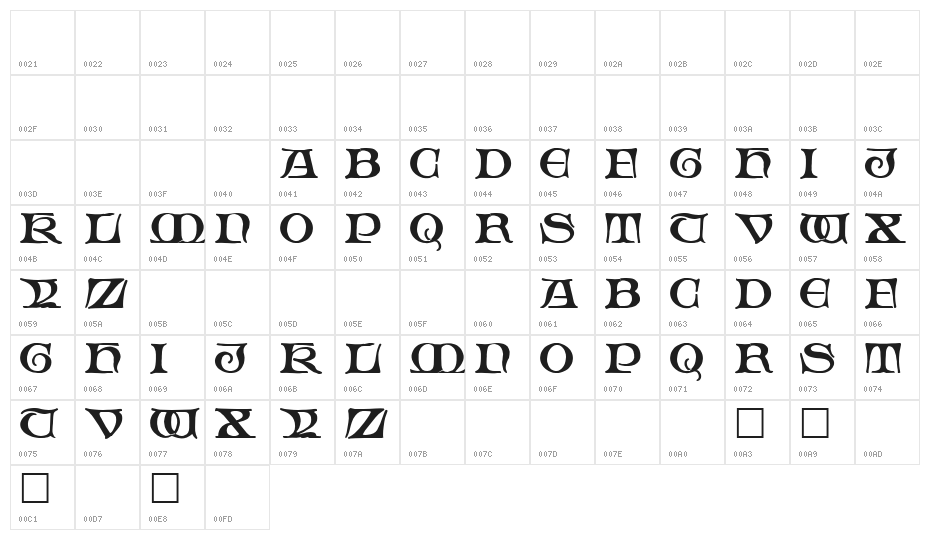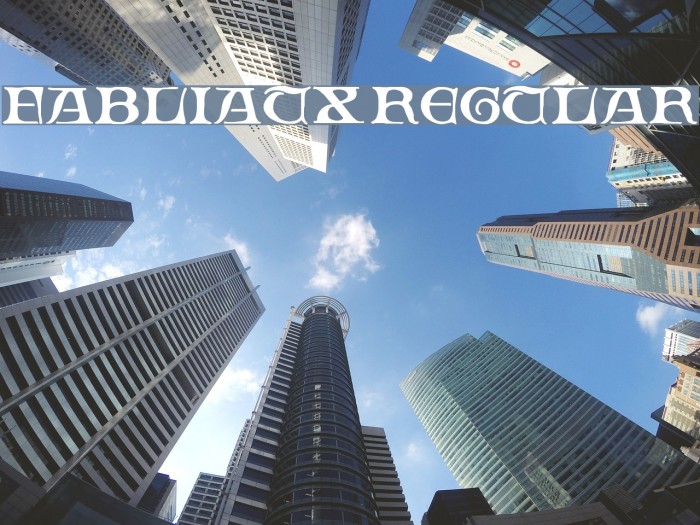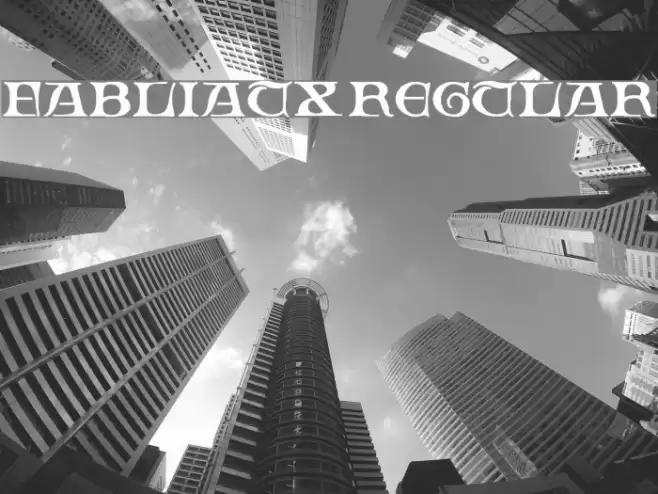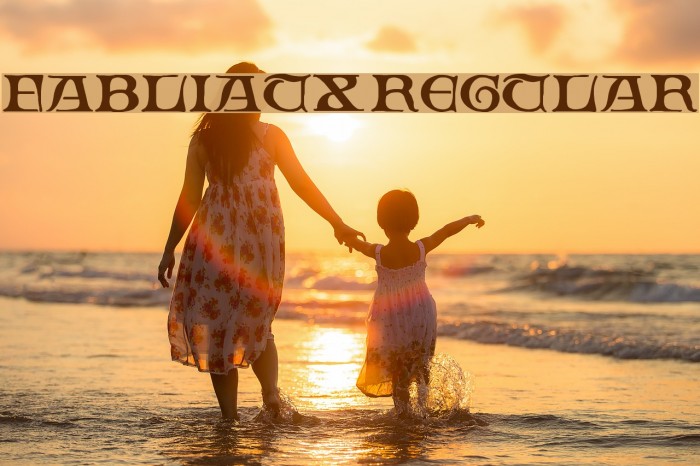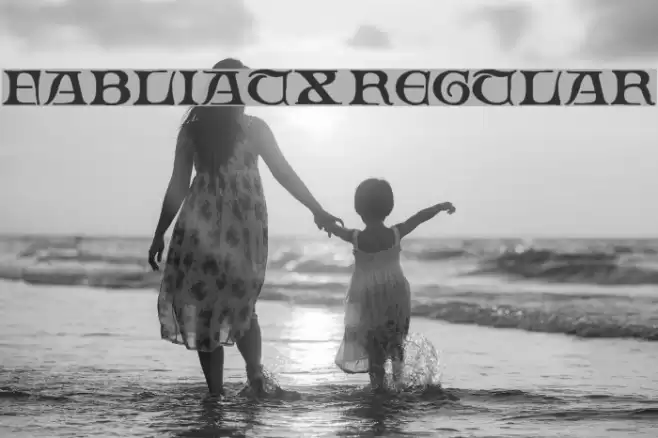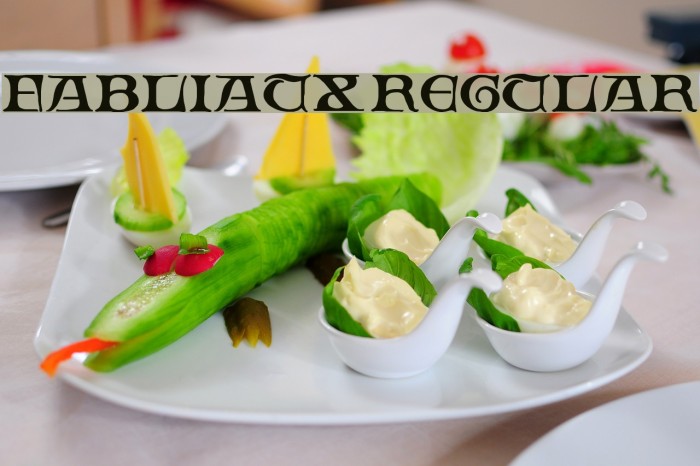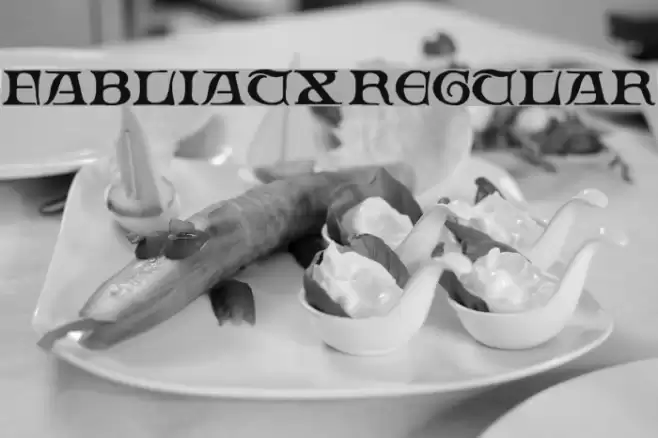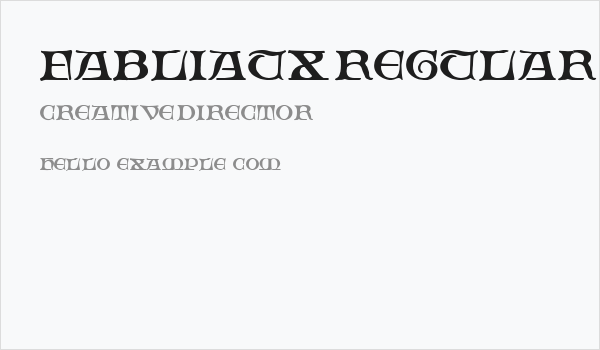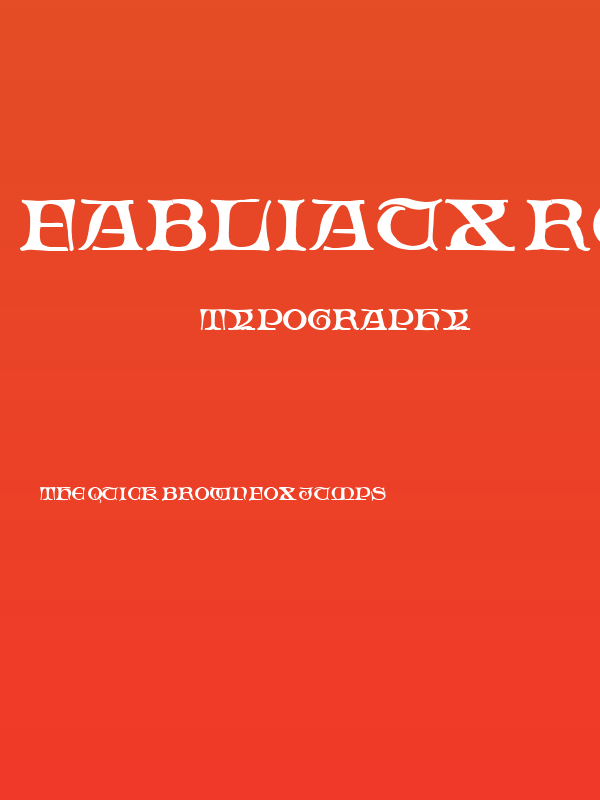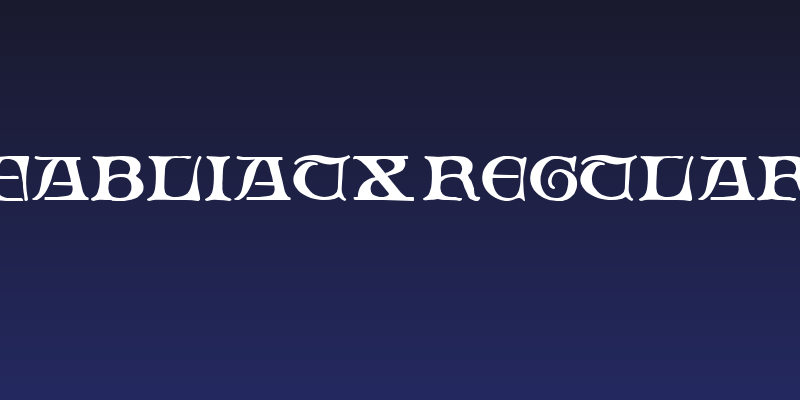
Fabliaux Regular Font
Fabliaux Regular Description
This font exhibits a distinctive and ornate style, characterized by its bold and decorative letterforms. The uppercase letters feature intricate curves and sharp angles, creating a sense of elegance and sophistication. The lowercase letters maintain the same decorative flair, with unique shapes that enhance the overall aesthetic. The numerals and special characters are equally stylized, ensuring a cohesive look across all text elements. This font's elaborate design makes it suitable for projects that require a touch of grandeur and historical charm.
| Proposed Projects | Ideal for use in historical-themed designs, invitations, book covers, and branding that requires a classic and elegant touch. |